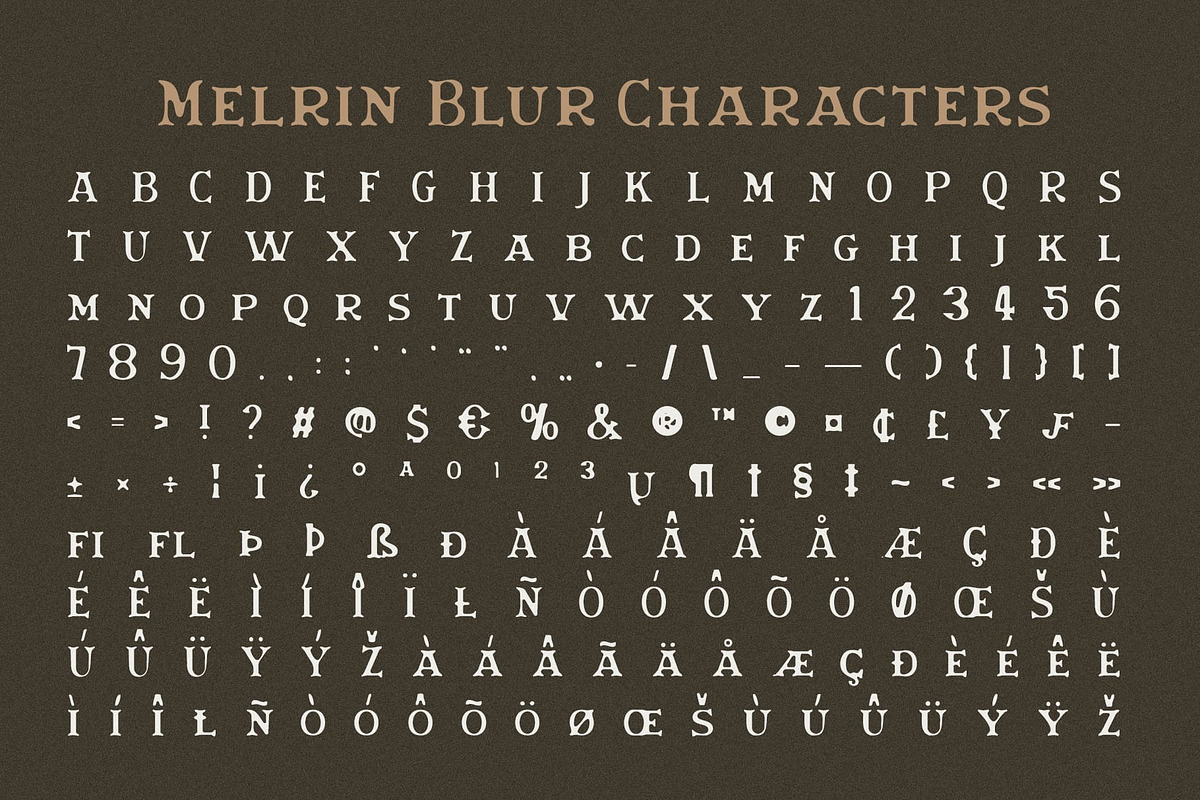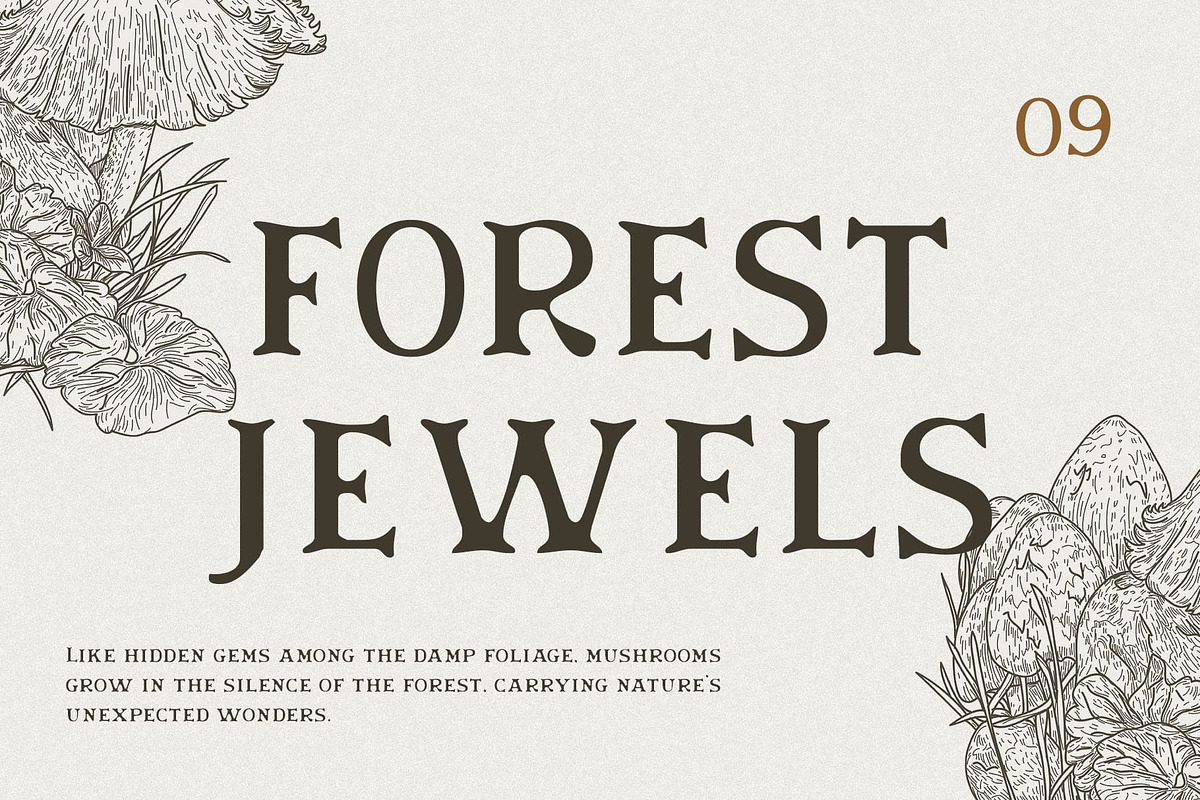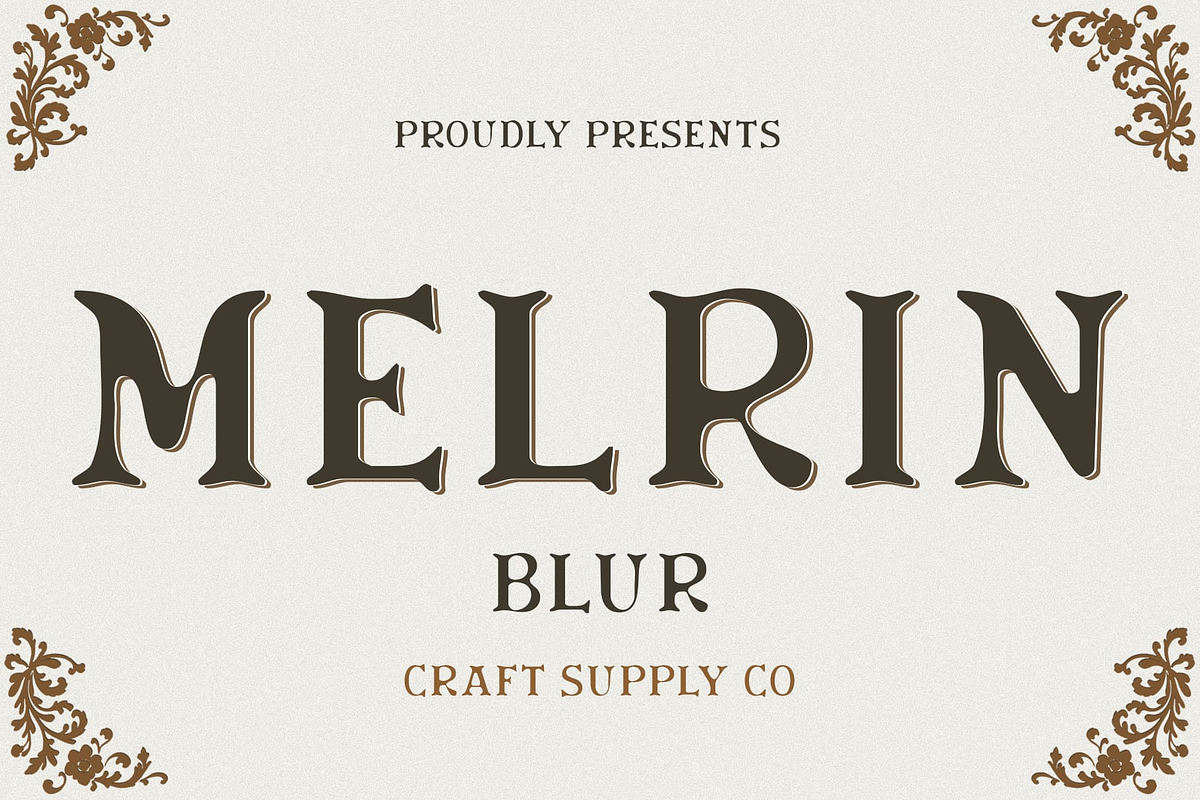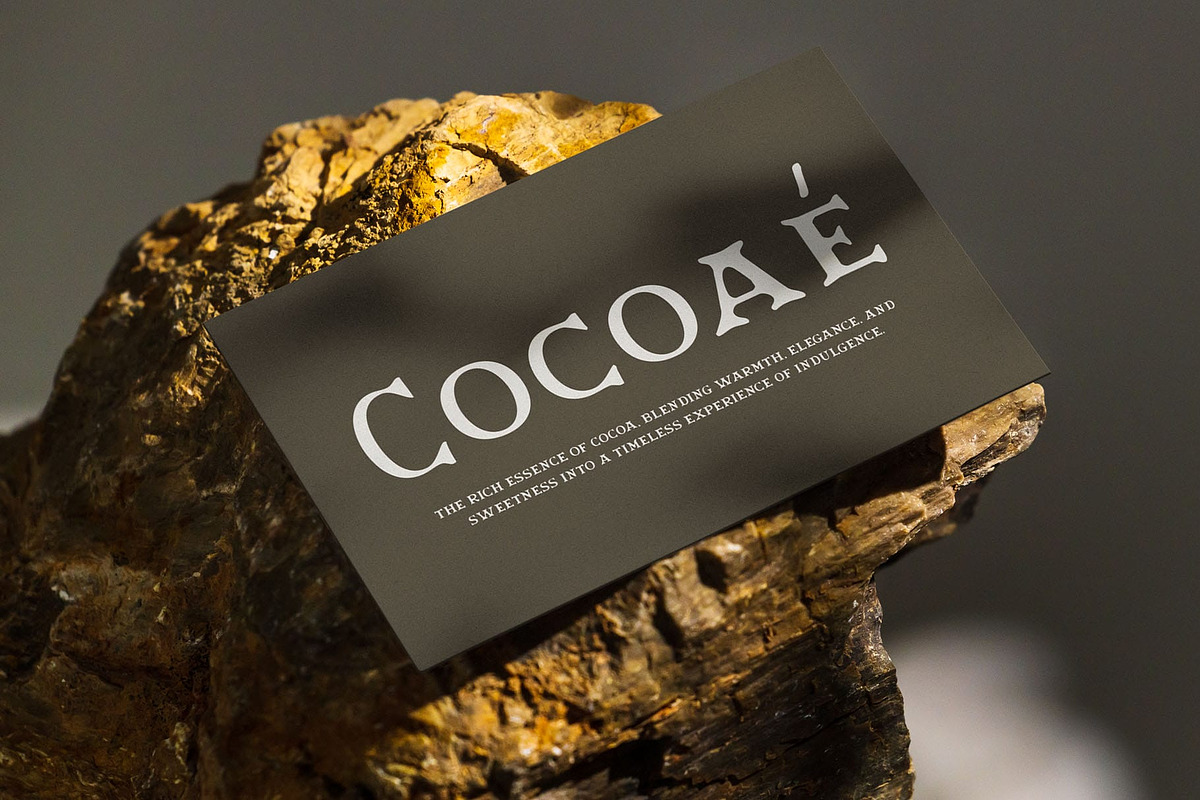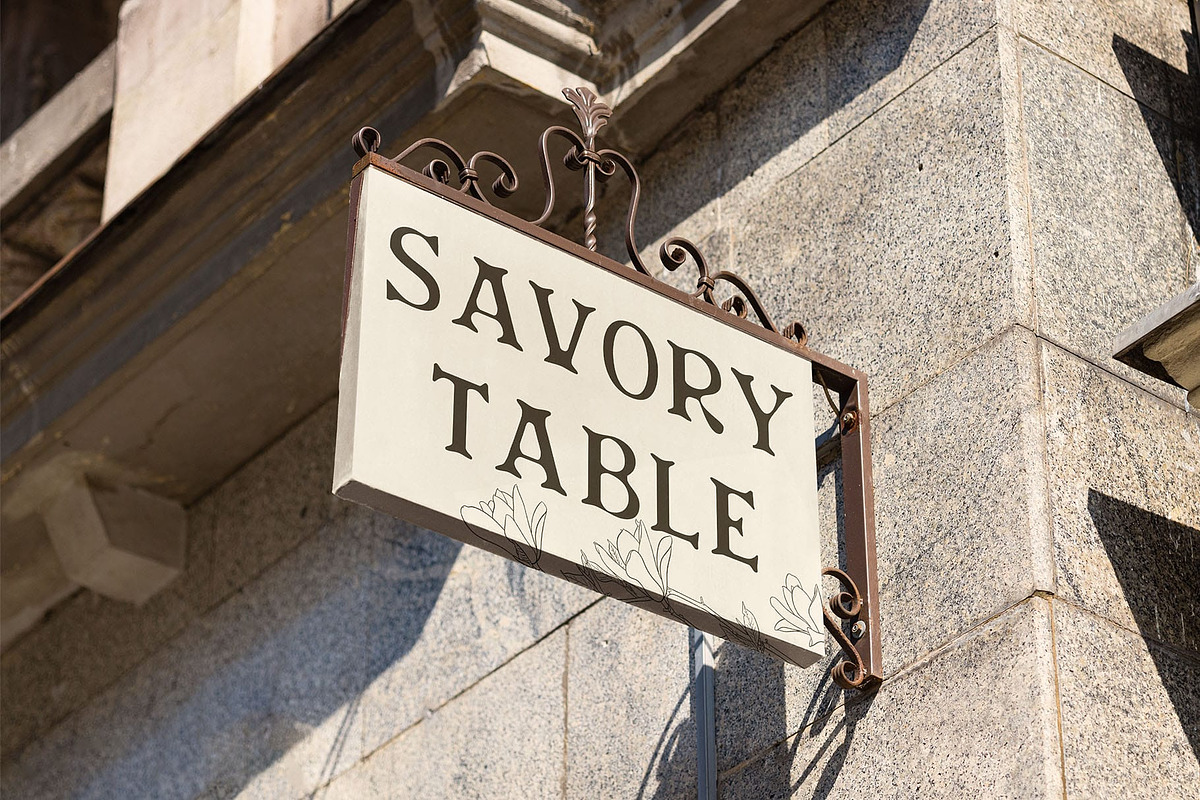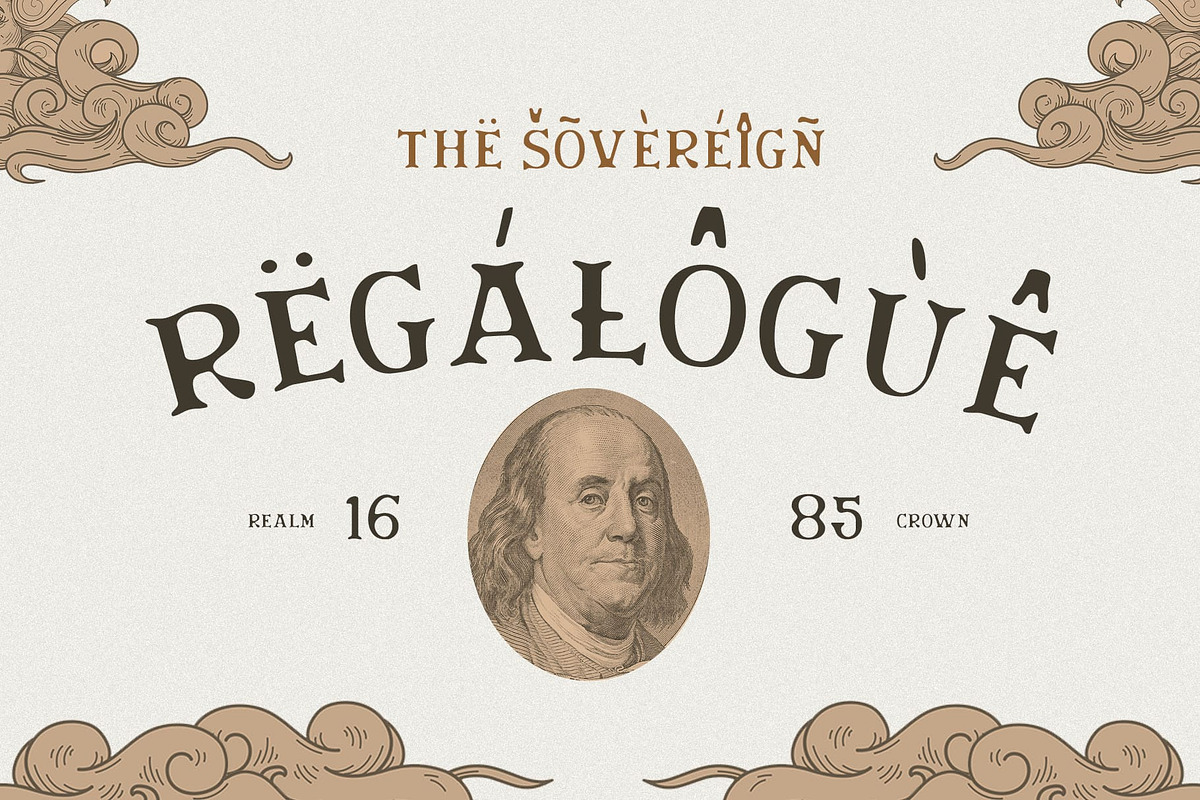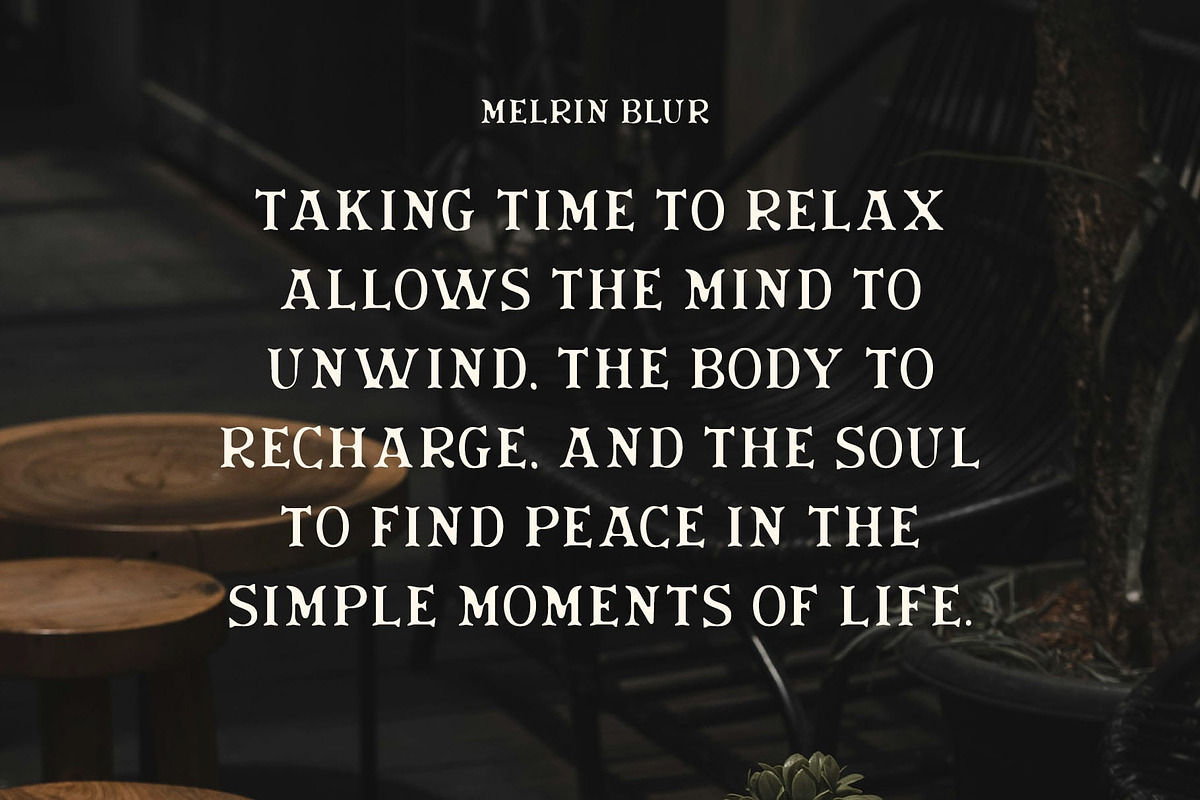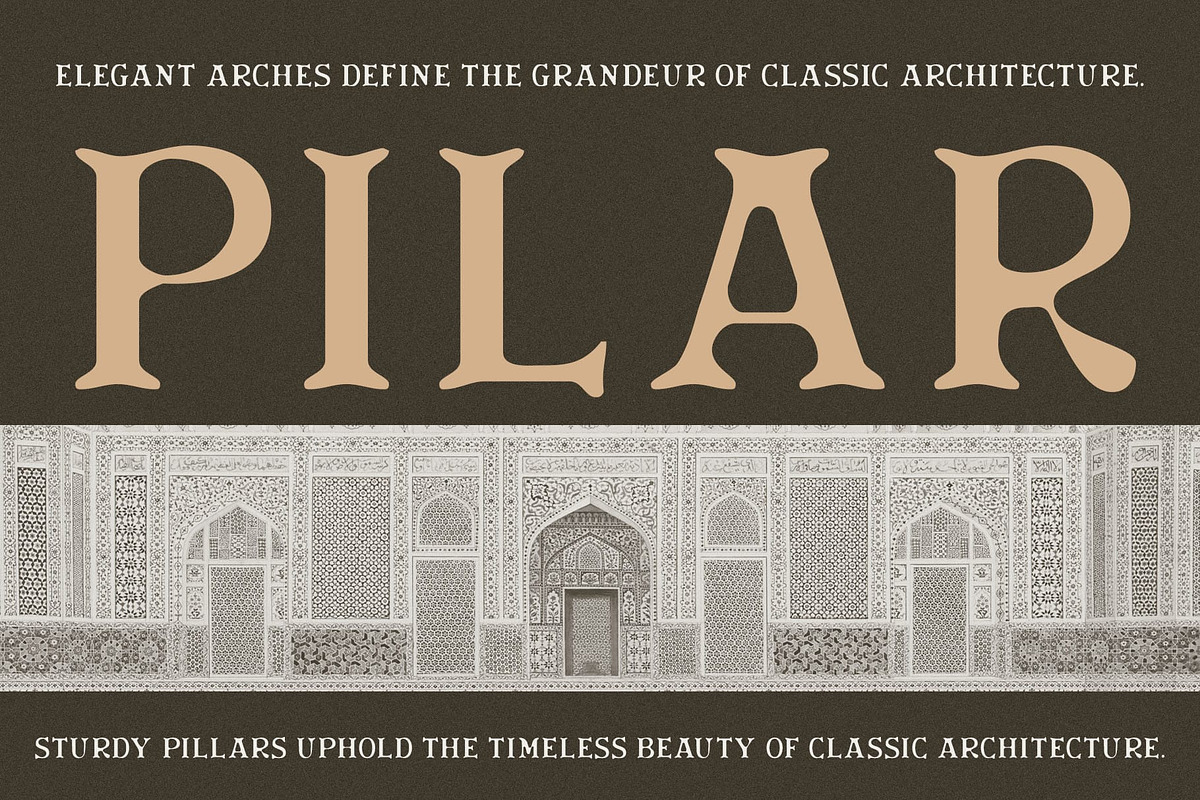
Melrin Blur
Melrin Blur Font – A Decorative Serif with a Funky Blur Effect
A Bold and Stylish Display Serif Melrin Blur is a decorative display serif font with bold, expressive letterforms that exude a funky and artistic charm. Its ornate details add a touch of sophistication, while the blur effect creates a soft, dynamic appearance, making it a standout choice for eye-catching designs.
A Playful and Experimental Aesthetic The combination of bold serifs, intricate details, and a blurred finish gives Melrin Blur a unique and experimental edge. This fusion results in a vibrant, high-impact style that is ideal for posters, artistic branding, and expressive editorial layouts.
Perfect for Creative and Distinctive Designs Designed for bold and playful visuals, Melrin Blur shines in branding, event promotions, music posters, and contemporary fashion projects. Its unconventional mix of structure and distortion makes it a great fit for designers seeking a fresh and innovative look.
Stand Out with a Funky, Artistic Flair Melrin Blur isn’t just a typeface—it’s a creative statement. Whether used in bold headlines, striking packaging, or unique social media graphics, this font delivers a modern, stylish, and artistic aesthetic that makes an unforgettable impression.